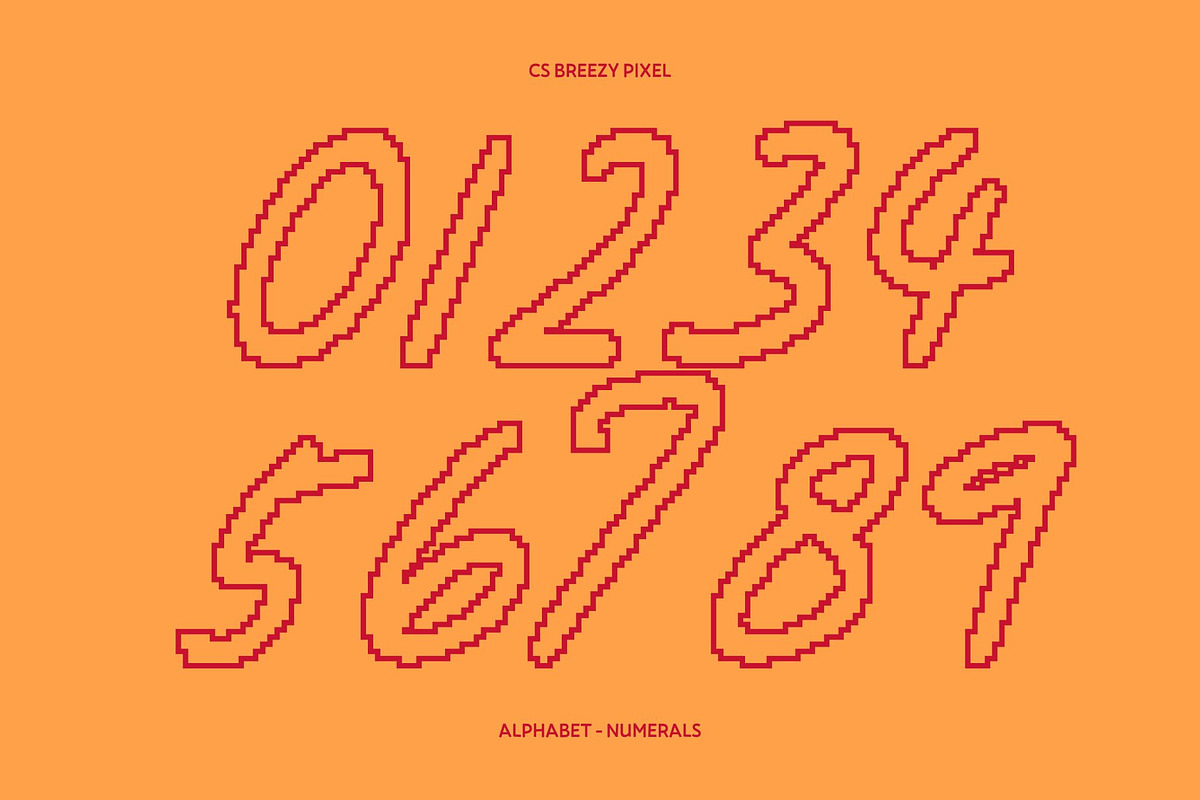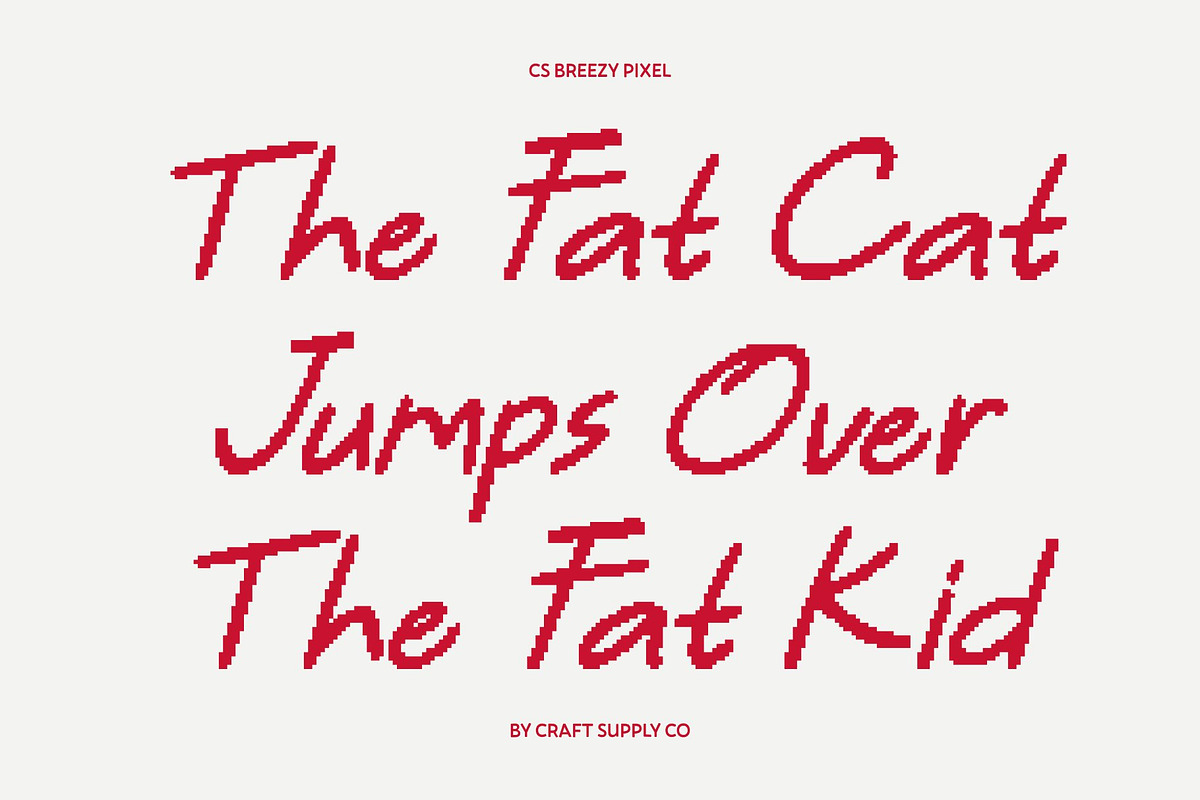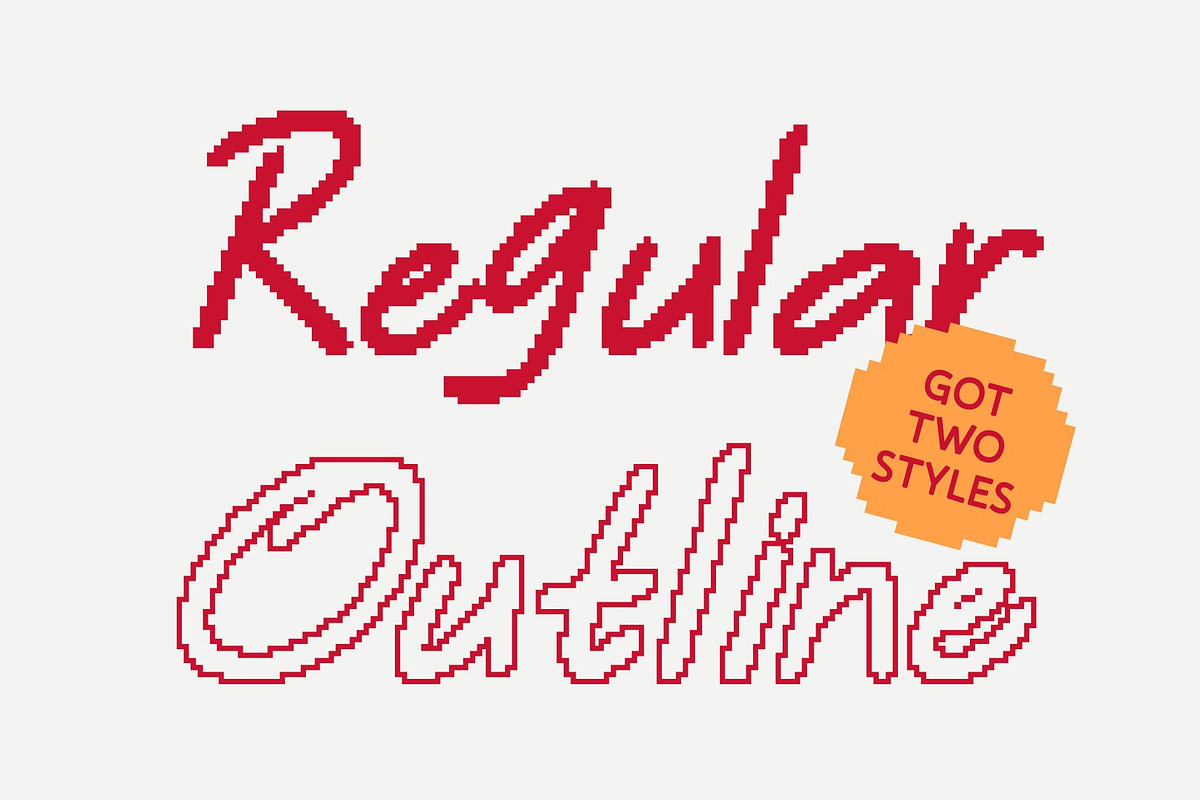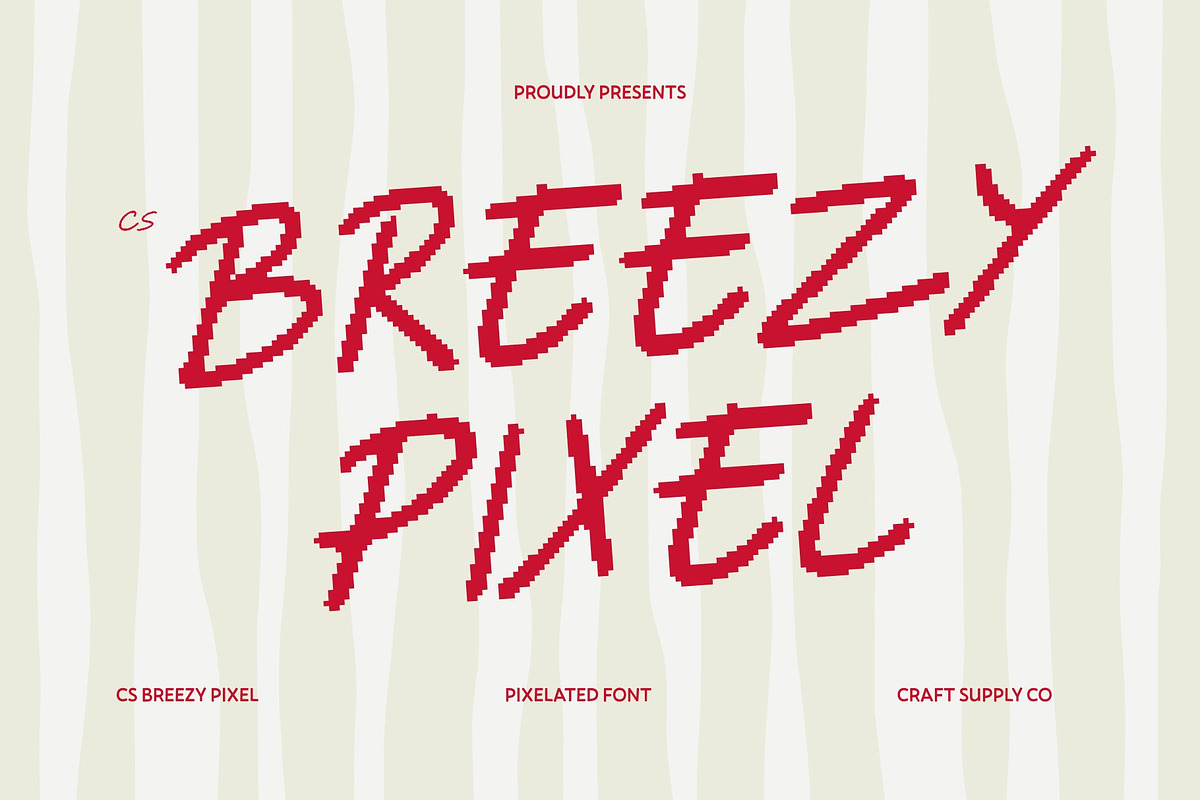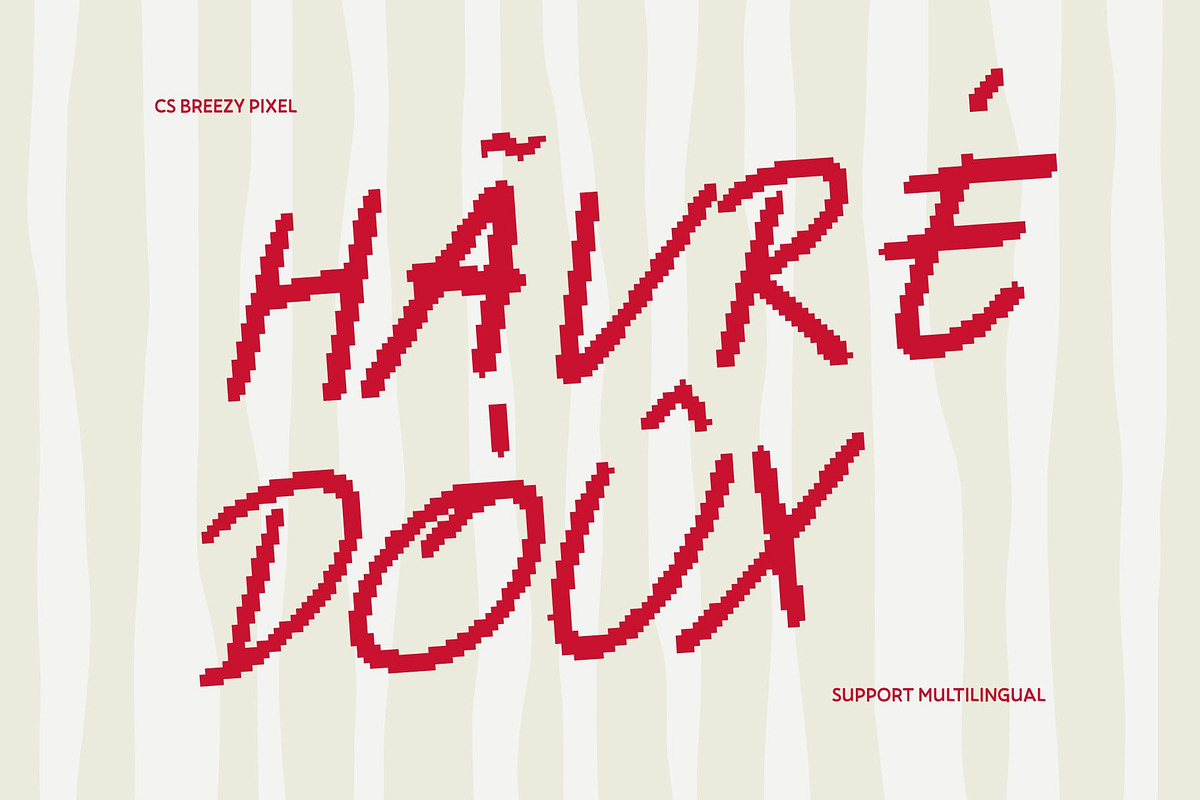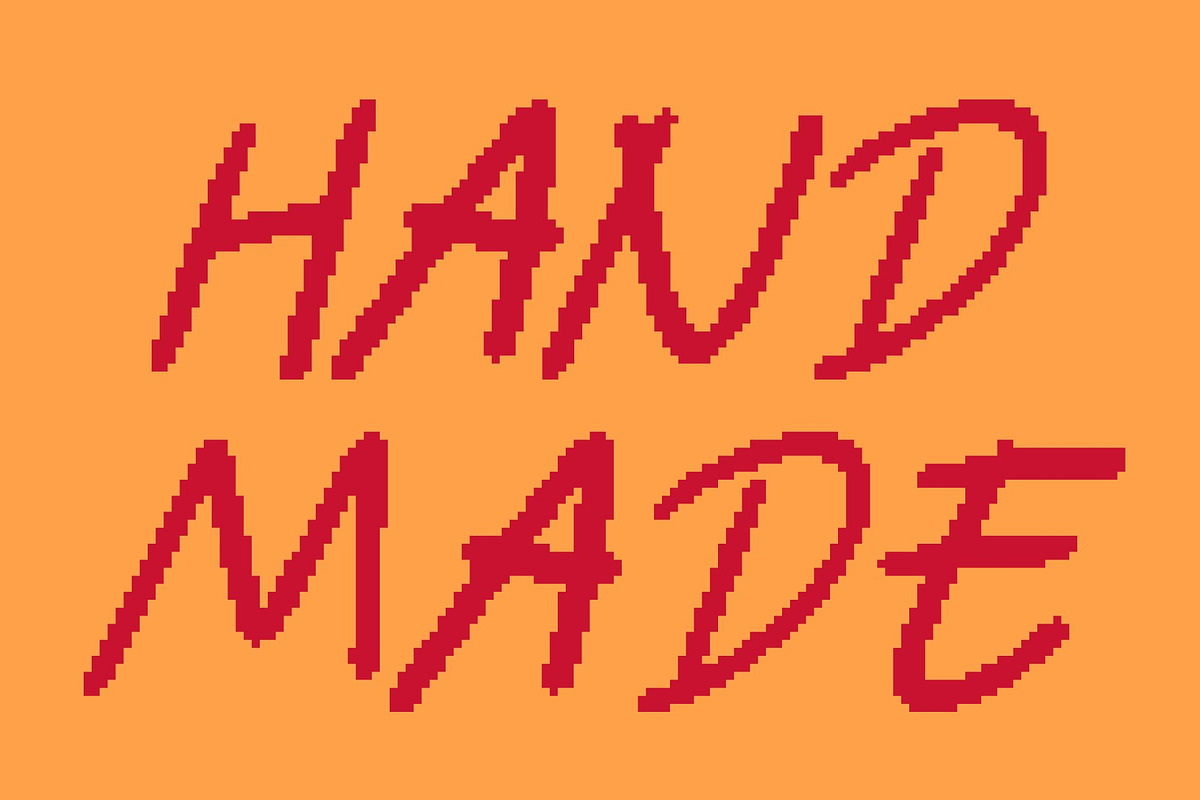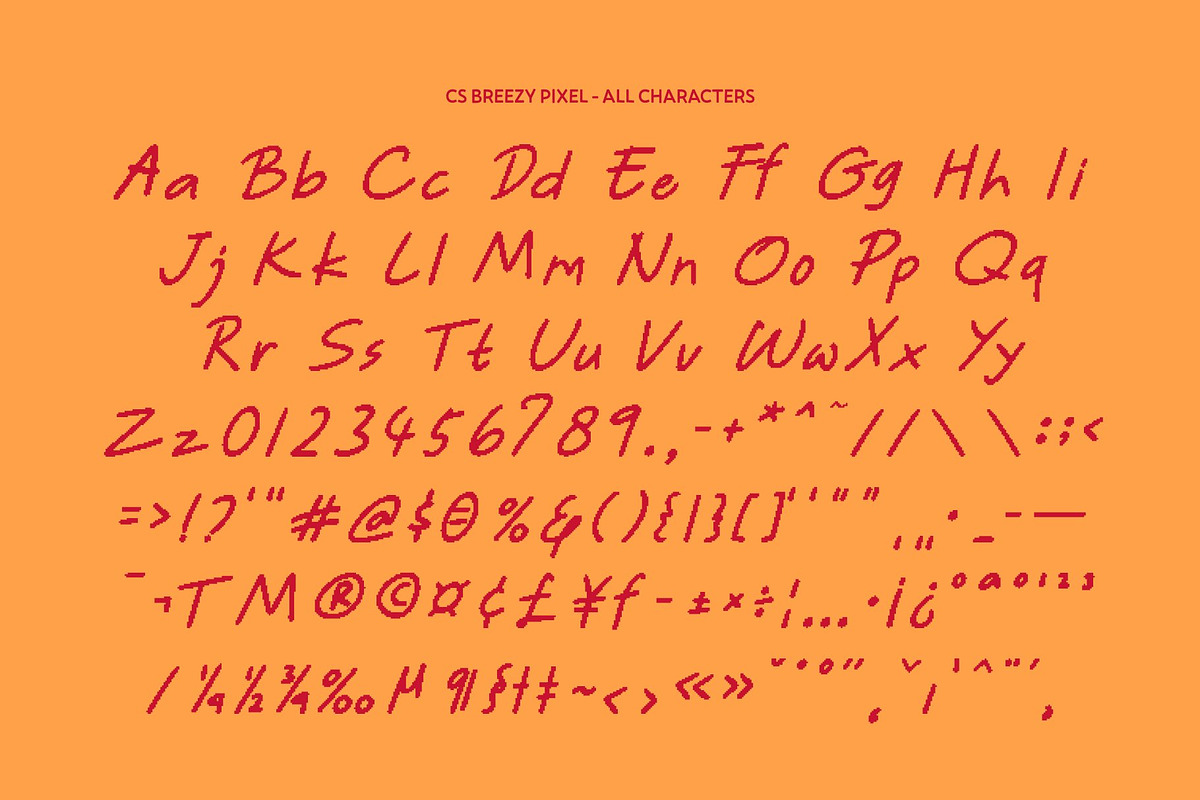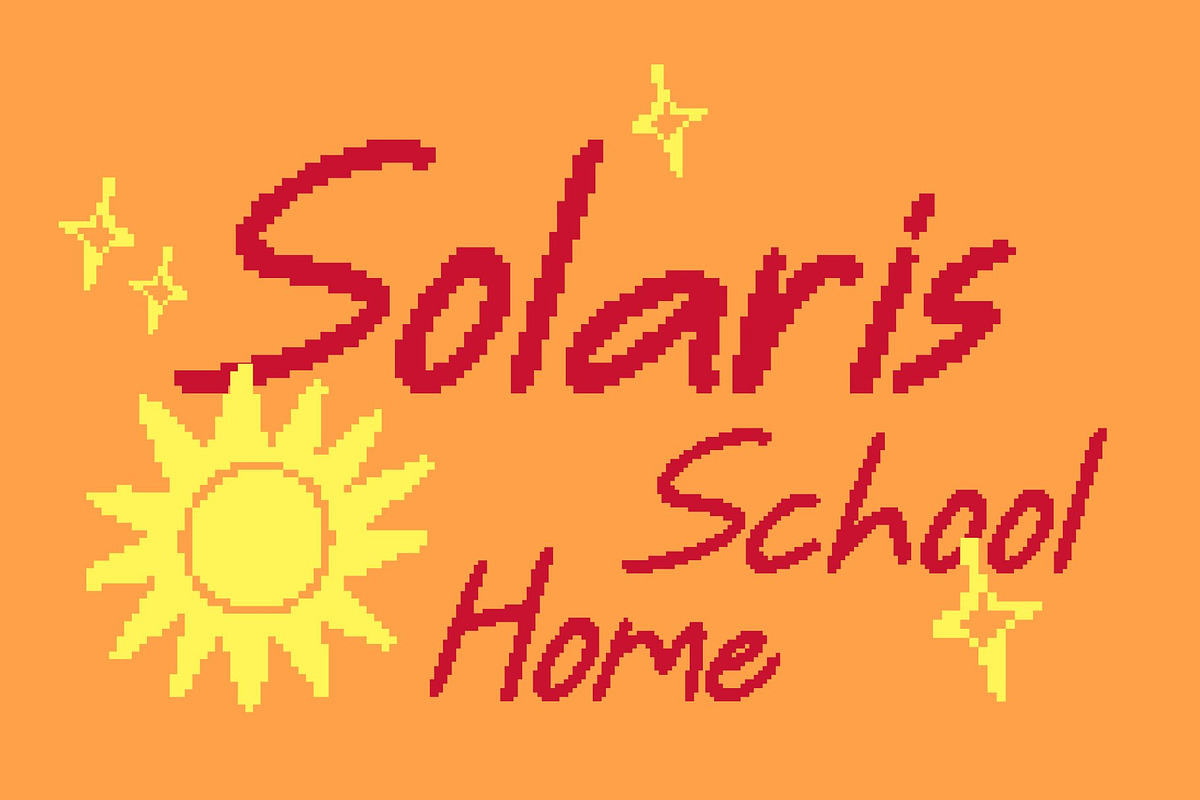
CS Breezy Pixel
CS Breezy Pixel – Fresh Energy with a Playful Digital Touch
Handwritten Pixel Sans Serif with a Light, Cheerful Vibe This is a lively handwritten-style sans serif font reimagined in a charming pixel aesthetic. It captures the feeling of freshness and renewal while introducing a retro digital twist inspired by old-school screens and pixel art. The result is a font that feels bright, joyful, and energetic, blending human warmth with nostalgic digital character.
Clean Pixel Structure with Playful Simplicity Built on a simple sans serif foundation, this font features soft, pixelated strokes that keep the design clean yet expressive. The handwritten influence adds spontaneity and friendliness, while the pixel style gives it a structured, digital rhythm. This balance makes the font feel light, modern, and visually engaging without becoming cluttered.
Spring-Like Energy with Retro Digital Charm This font carries an uplifting spirit, much like a digital version of springtime joy. Each letter feels lively and rhythmic, evoking positivity, creativity, and movement. The pixel treatment adds a nostalgic, old-technology feel that makes the font perfect for playful digital visuals and retro-inspired designs.
Perfect for Digital Cards, Invitations, and Creative Media Ideal for greeting cards, invitations, social media graphics, and fun branding, this font shines in both digital and print use. Its airy personality and pixel charm make every message feel friendly, fresh, and eye-catching perfect for designs that celebrate joy, creativity, and retro digital style.
- CS Breezy Pixel Regular
- CS Breezy Pixel Outline